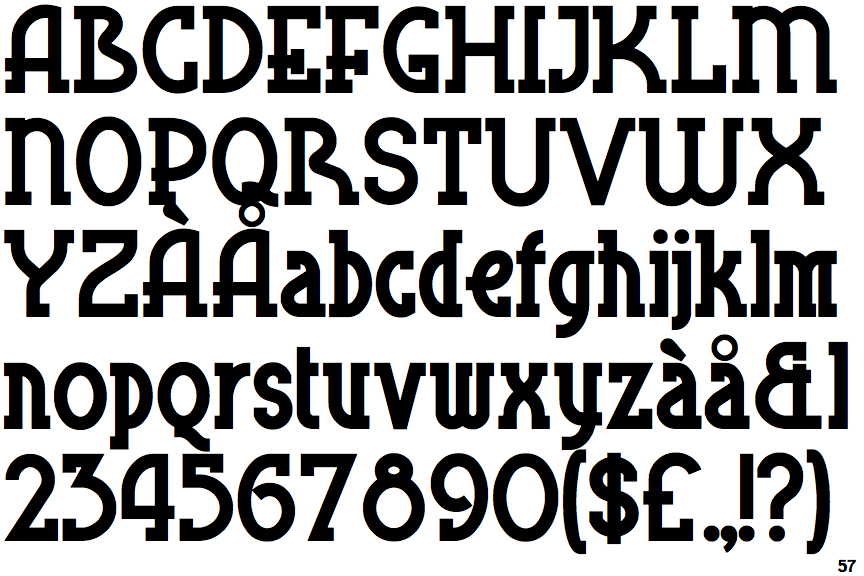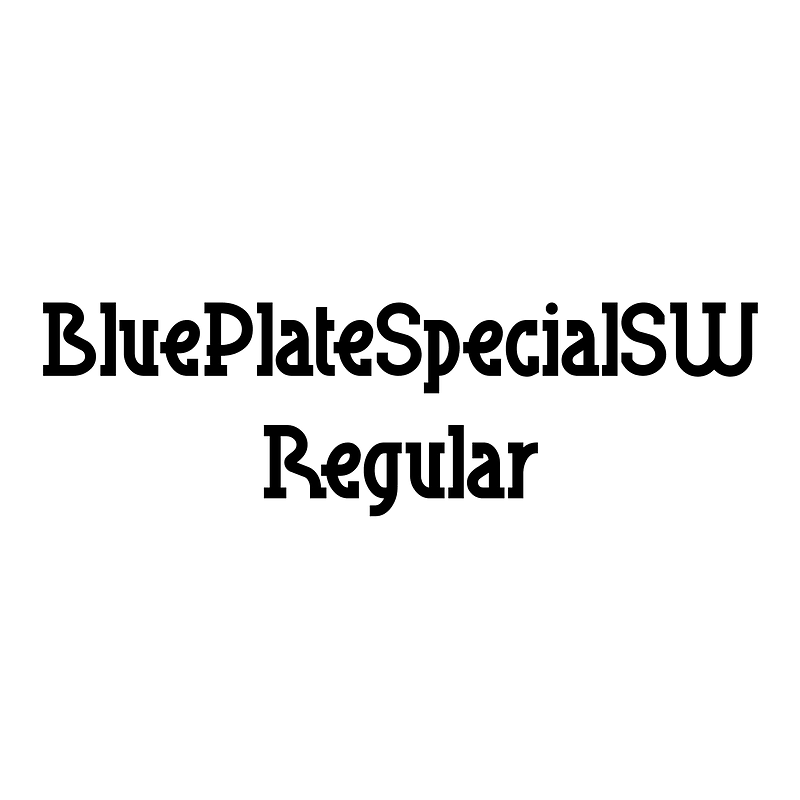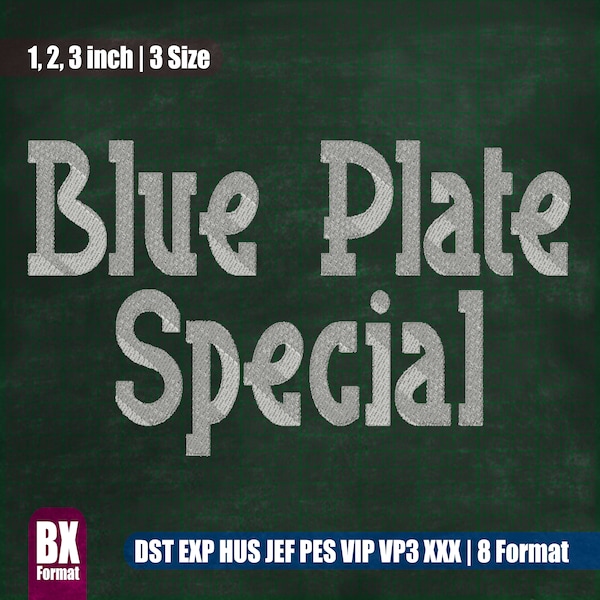
What's The Origin Of The Phrase 'Blue Plate Special'? Blue Plate Special Font Download blue plate special nf font · free for commercial use · another font with a futuristic feel from the fevered imagination of samuel. The blue plate special font has been downloaded 17,564 times. Blue plate special sw font | dafont.com english français español deutsch italiano português. Blue plate special sw font contains 233 defined characters and 227 unique glyphs.. Blue Plate Special Font.
Blue Plate Special SW Font Download Fonts4Free Blue Plate Special Font Neat and easy to read, this font is suitable for many kinds of design projects. Download and install the blue plate special font by nicks fonts. Dans fantaisie > rétro 157 719 téléchargements (1 hier) 2 commentaires 100%. The blue plate special font has been downloaded 17,564 times. Blue plate special sw font contains 233 defined characters and 227 unique. Blue Plate Special Font.
Blue Plate special Blue Plate Restaurant Company Diner Blue Plate Special Font The blue plate special font has been downloaded 17,564 times. Blue plate special font specimen. Released in 2001 by nick's fonts and licensed for personal and. Dans fantaisie > rétro 157 719 téléchargements (1 hier) 2 commentaires 100%. Blue plate special sw font | dafont.com english français español deutsch italiano português. Add it to your fonts library and use it. Blue Plate Special Font.